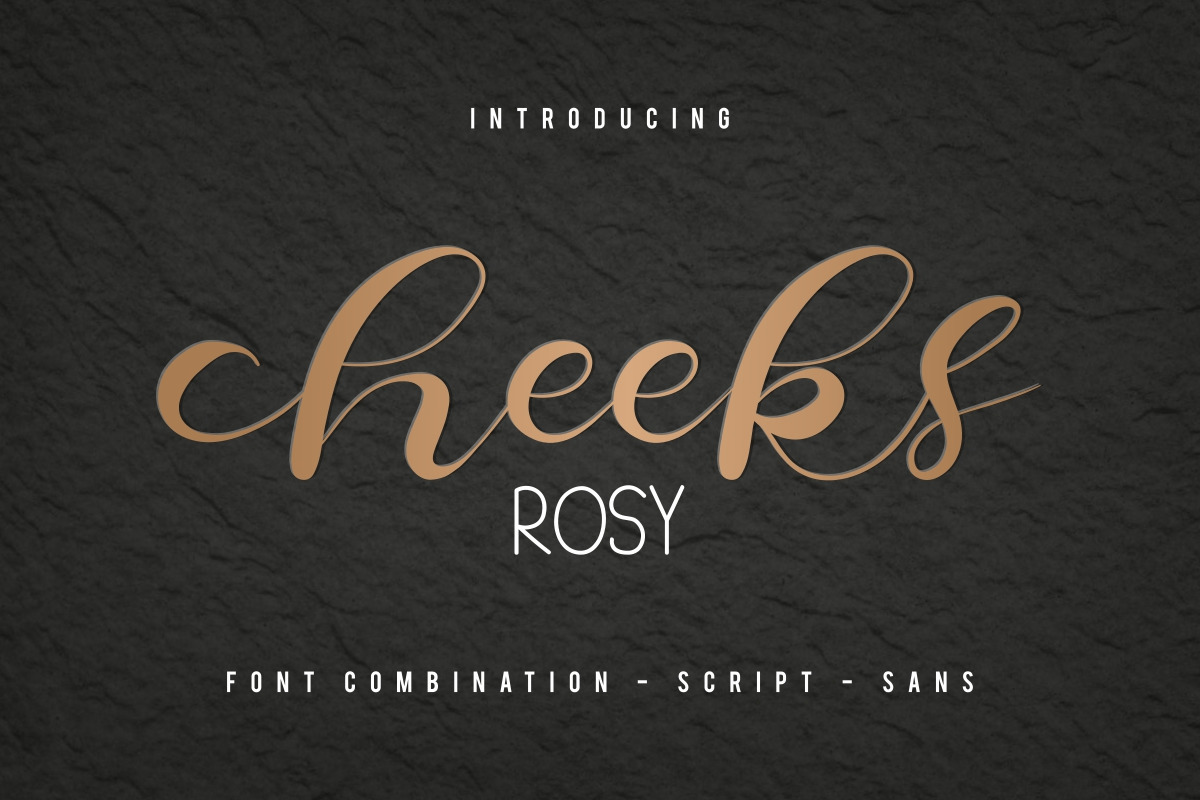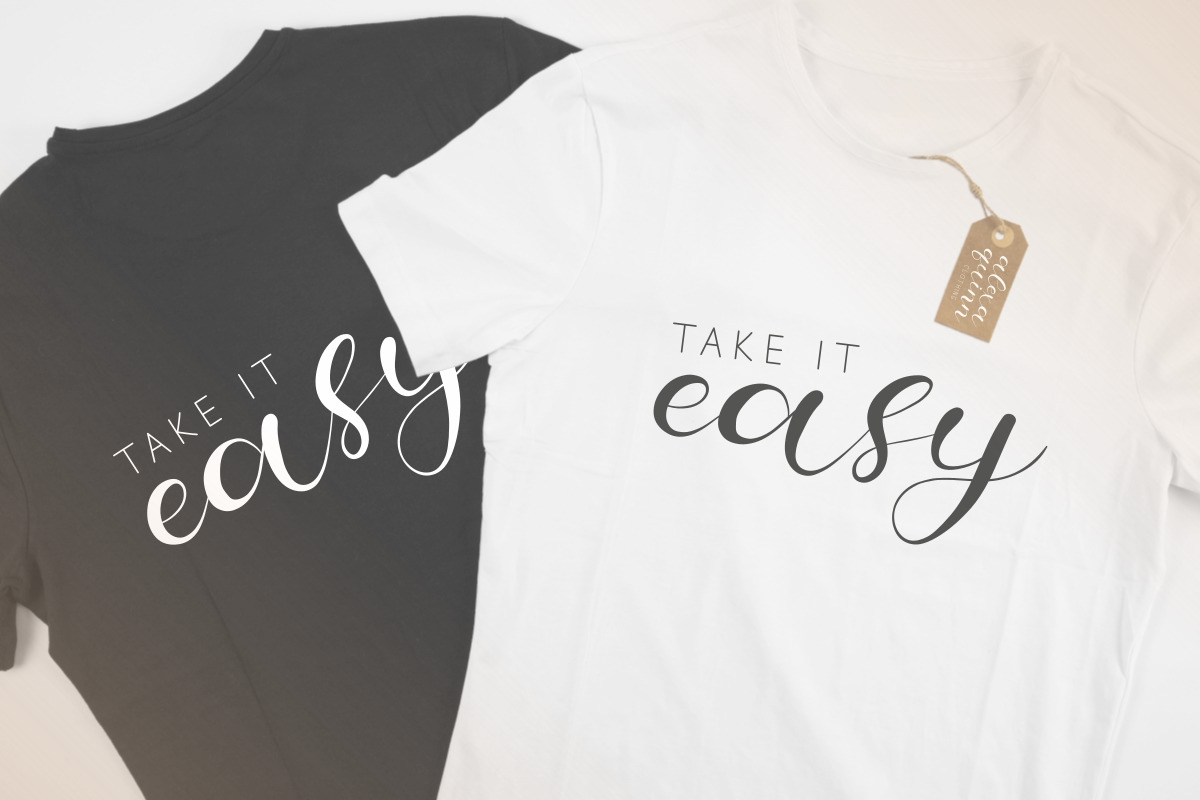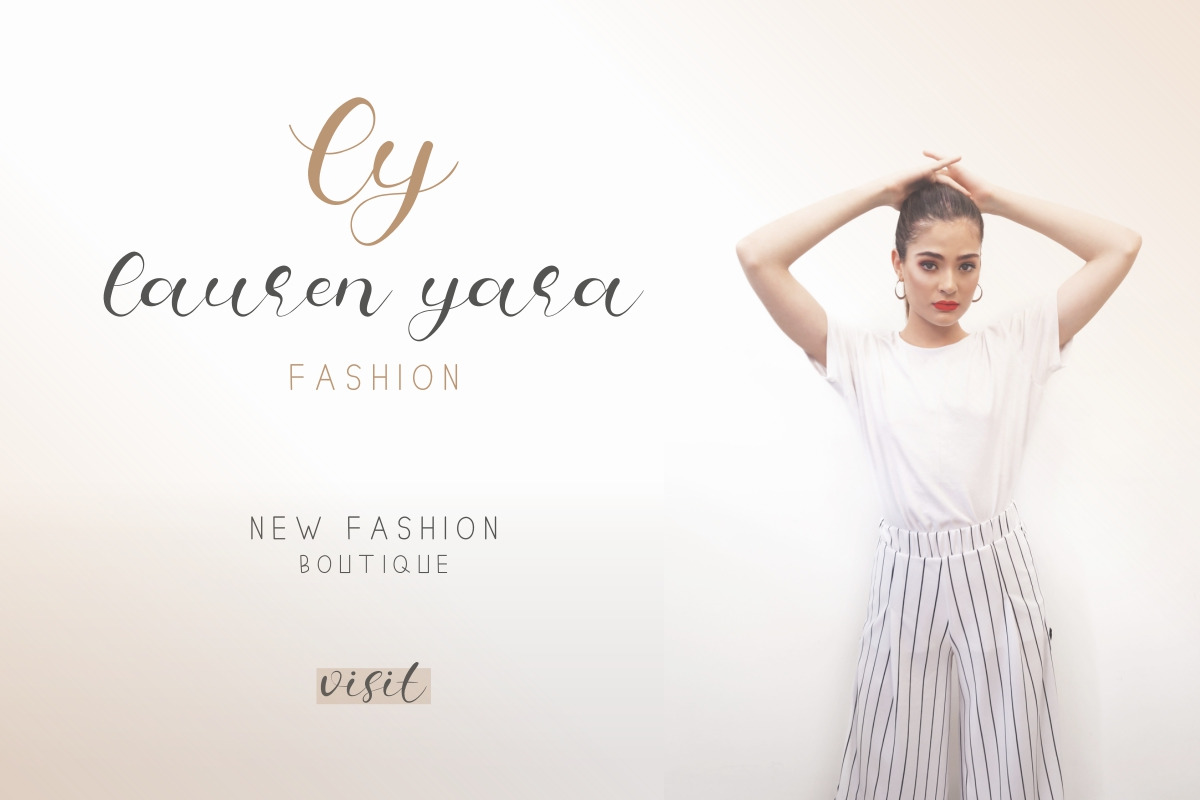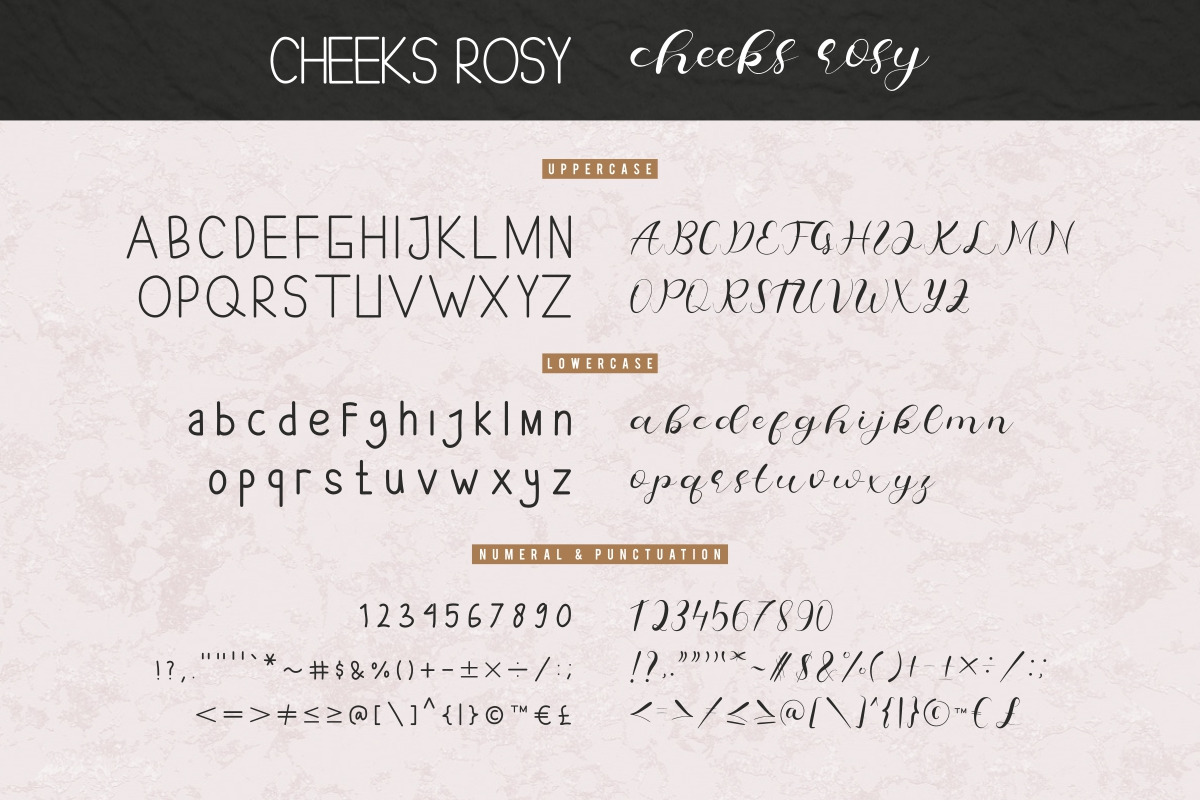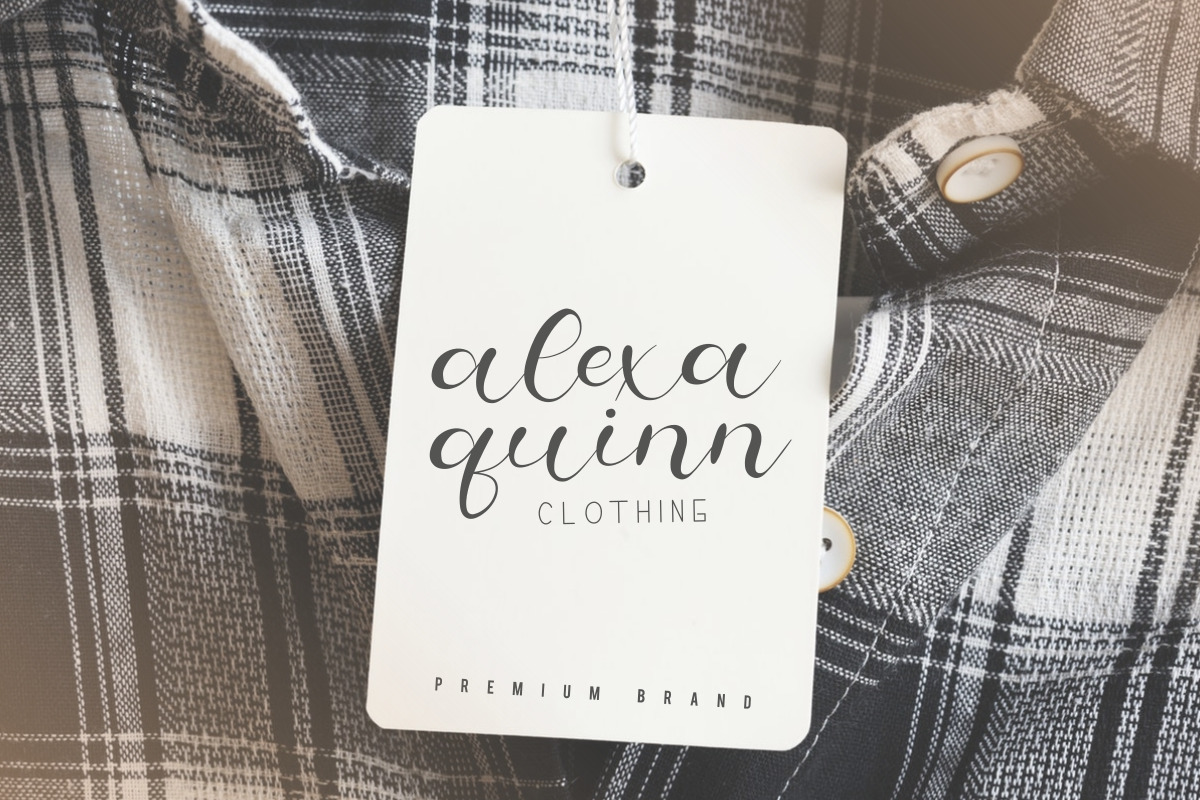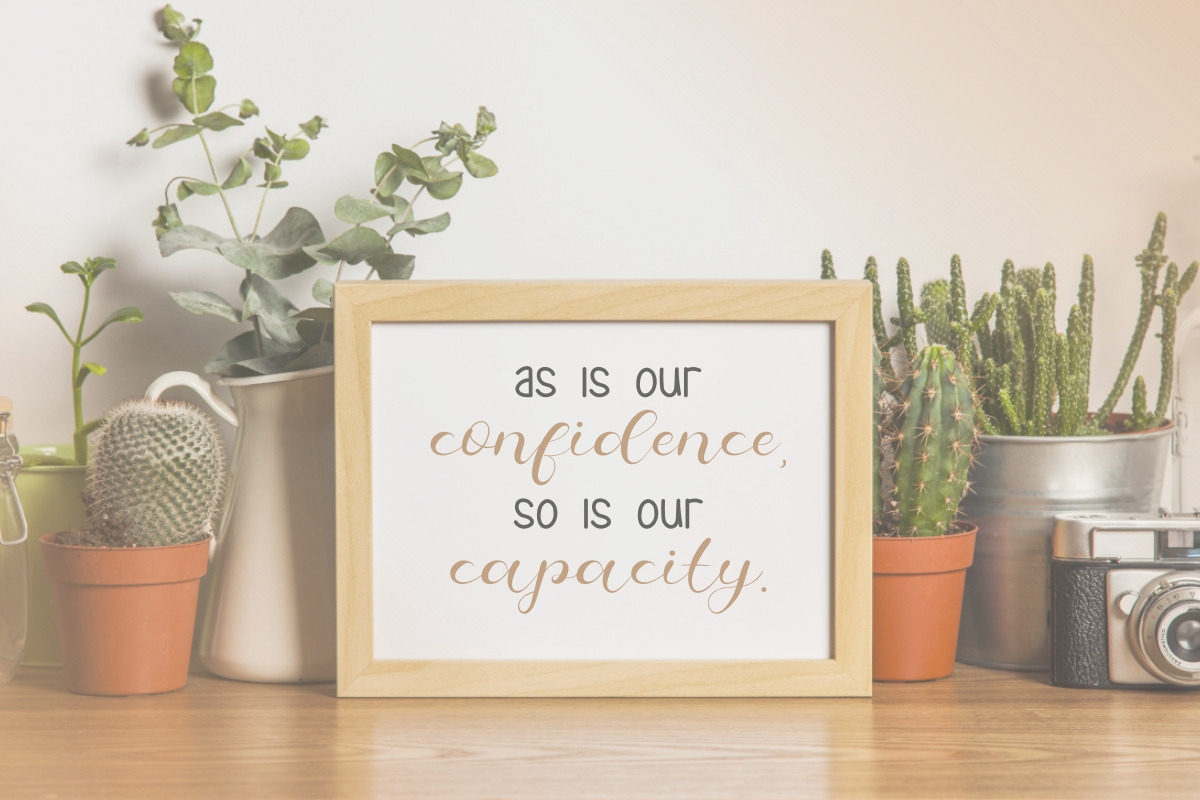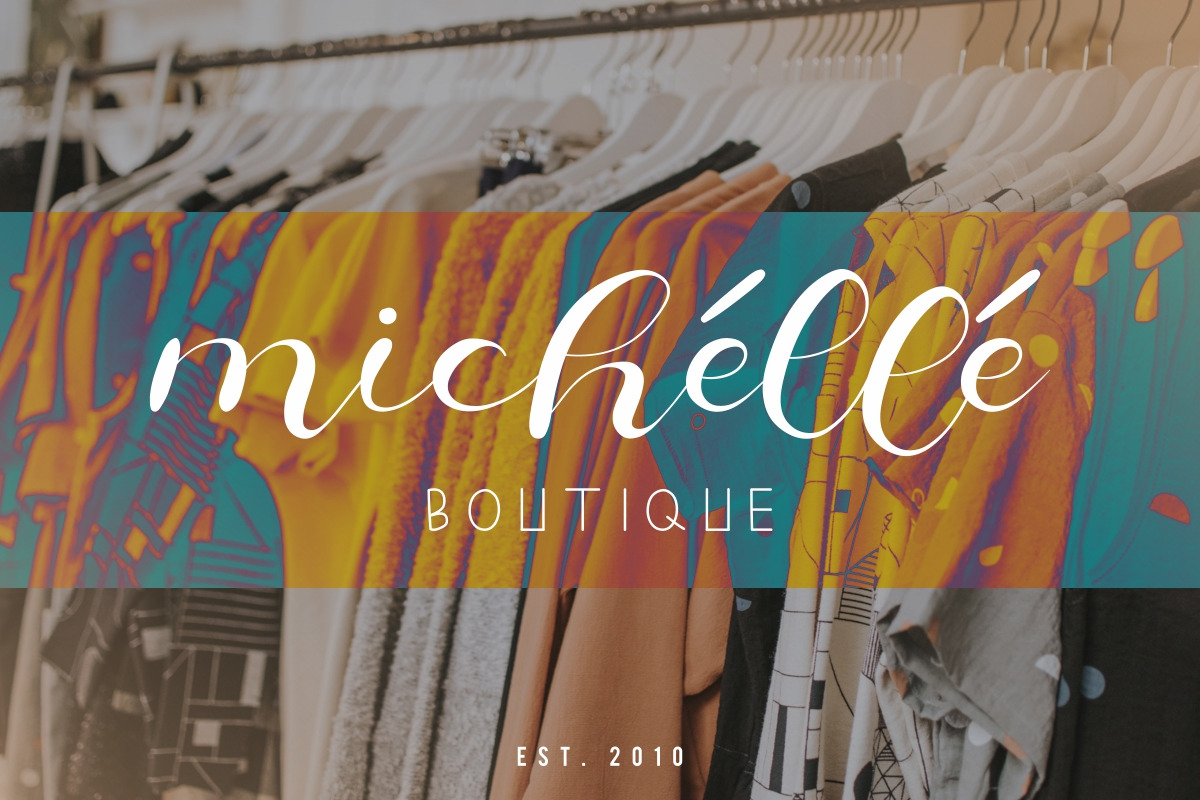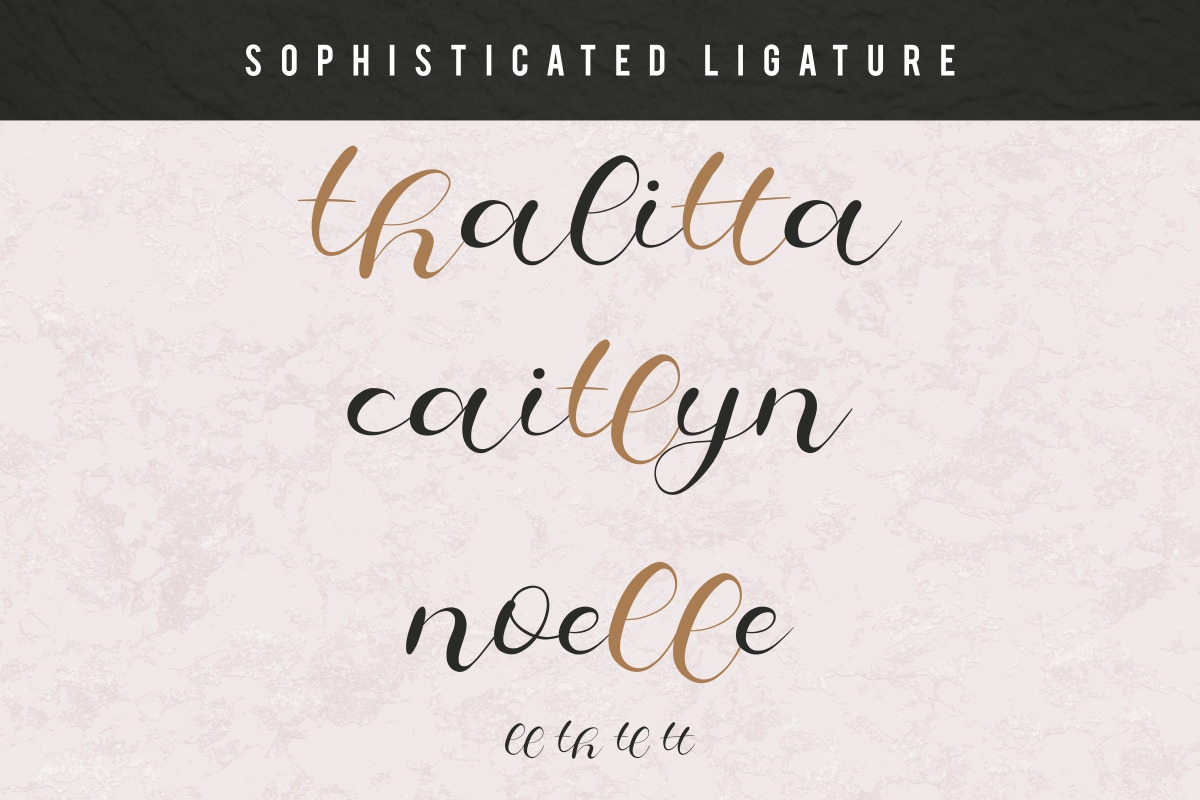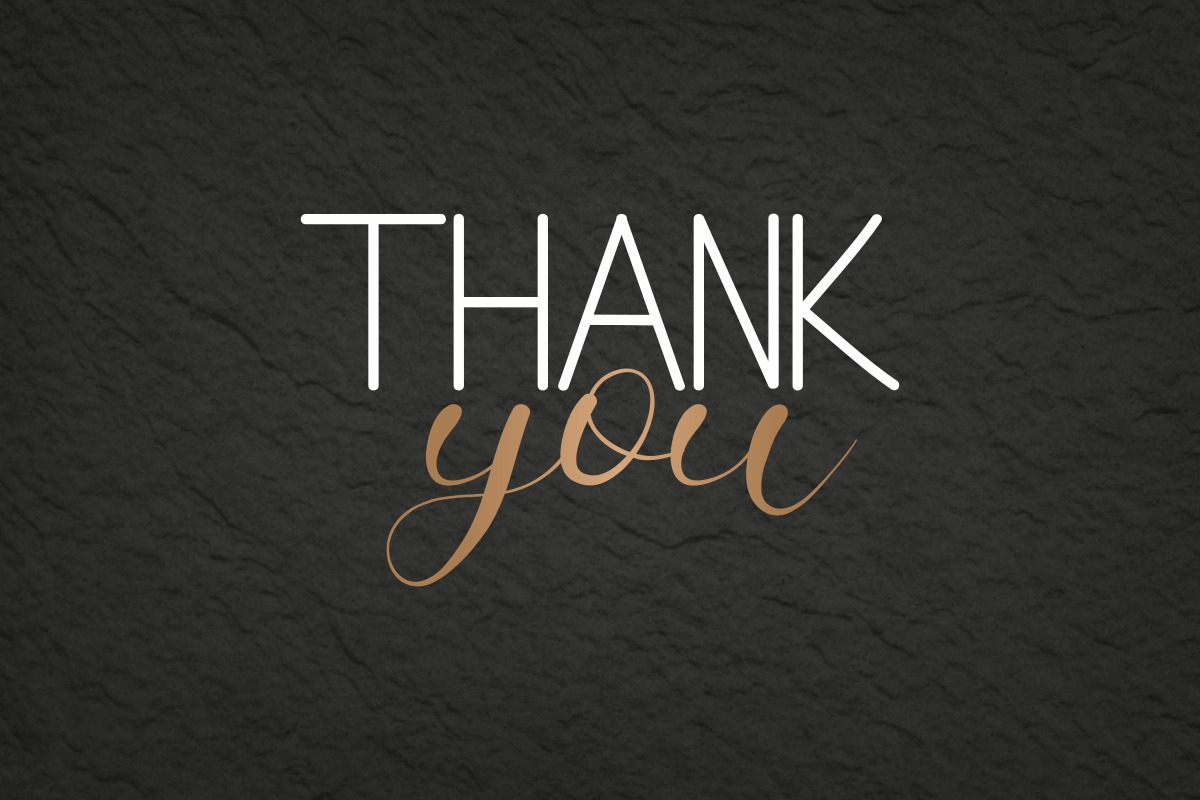
Cheeks Rosy Font Duo
Please welcome! Cheeks Rosy Font Duo
This is the newest font from Three of our lovely artists : Ali, Widiyanti and Suci. This is a duo typeface, handcrafted from our Studio. Situated here in Garut and Bandung, Indonesia. Made with love and passion. :)
Cheeks Rosy Font Duo is an exclusive duo typeface with unique and elegant styles. The typeface has a stunning characters set, perfectly kerned and spaced. The style character of this font is elegant, stylish, sophisticated and classic brush calligraphic style. It’s exclusive you wont find any where-else, the font like Cheeks Rosy Font Duo.
Cheeks Rosy Font Duo comes with two different typeface styles: Display Sans Serif and Script hand calligraphy. These fonts will be great for any projects (extended license needed) including : branding, logo, stationery, business card, signage, flyer, brochure etc. Almost all industries will be match for this typeface: wedding, events, real estate, architect, law firm, florist, gardening, makeup artist, travel, hotel, musician etc